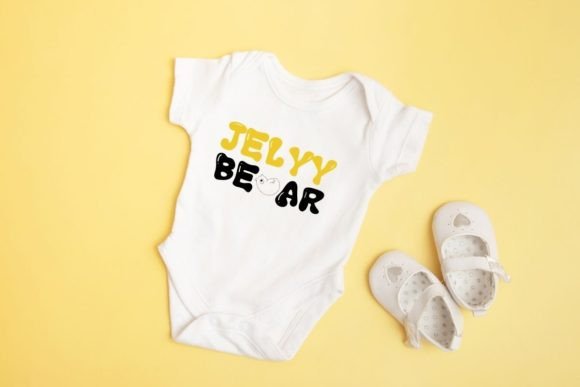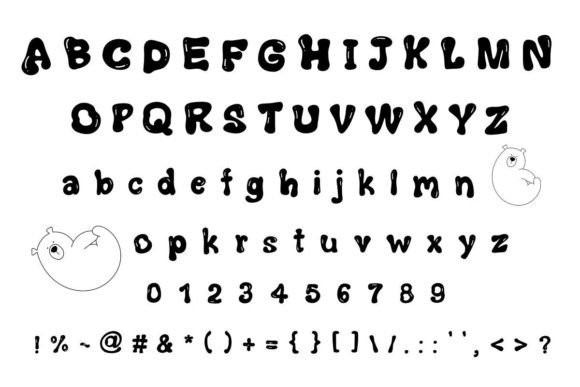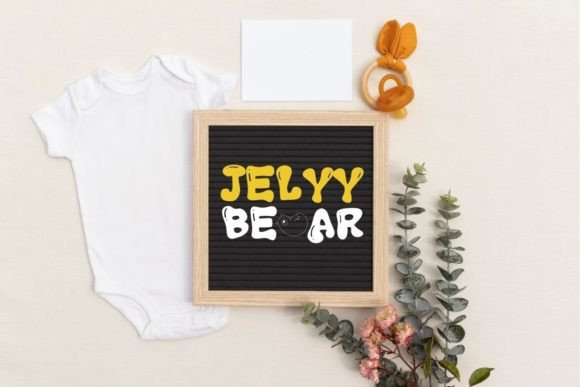
Introduction to Jelly Bear Font
Jelly Bear is a cute and friendly display font.
With its graceful and fluid letterforms, this font exudes a sense of playfulness that is perfect for posters, children-themed designs, stickers, and more .
Key Features of Jelly Bear Font